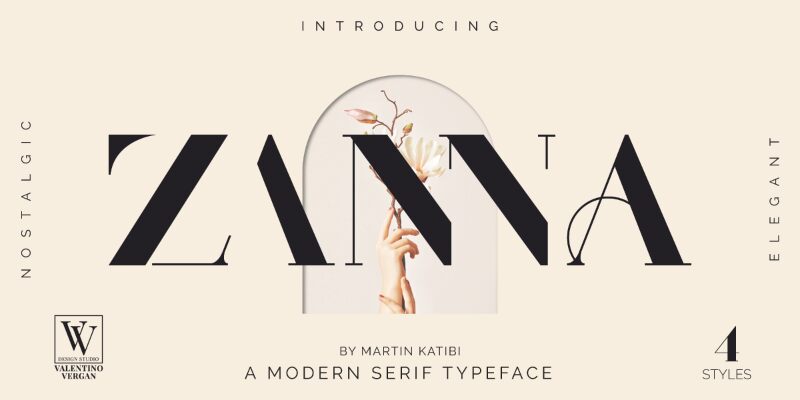
Introducing Zanna  A brand new modern high-contrast beautiful Ligature Typeface.
Zanna is a stylish modern and elegant serif, with a high contrast and creative ligatures. Zanna was inspired by the famous Didot font, which gives it a sense of style and fashion with a touch of sophistication. Zanna also has a very thin hairlines and short non-bracketed serifs, which makes its classy and chic. The font comes in two styles Regular and Stencil, each style has an oblique version.
Zanna was built with OpenType features and includes ligatures, alternates, multilingual support, numbers and punctuation. To access the large selection of ligatures and alternate letters, just select the ligatures or alternate letters from the glyphs panel.
Zannas elegant design makes it a very versatile font, covering a wide range project such as: fashion design, brochures, magazines, logo, branding, poster design, Instagram templates, videos, wedding invitations, quotes, blog header, poster, social media, advertisements and much more.
If you a looking for something modern, stylish and chic for you next project, Zanna is the font for you.
Zanna is a stylish modern and elegant serif, with a high contrast and creative ligatures. Zanna was inspired by the famous “Didot” font, which gives it a sense of style and fashion with a touch of sophistication. Zanna also has a very thin hairlines and short non-bracketed serifs, which makes its classy and chic. The font also comes in two styles Regular and Stencil.